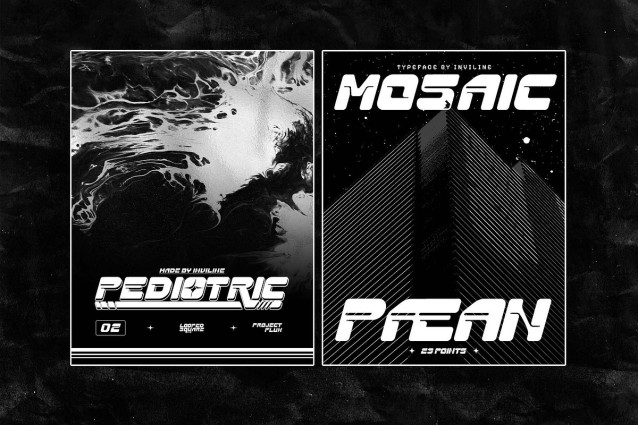
Flux Futuristic Font
Flux Futuristic Font – Y2K Futuristic Display Typeface. Bring a touch of retro-futuristic to your designs with this meticulously crafted font collection. Perfect for adding a Y2K vibes to your branding, packaging, logos, and more.